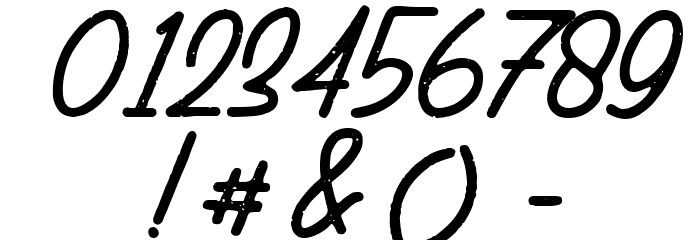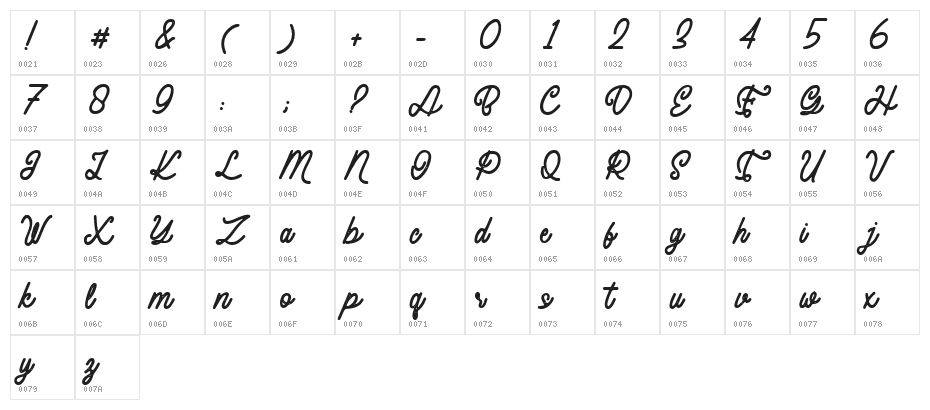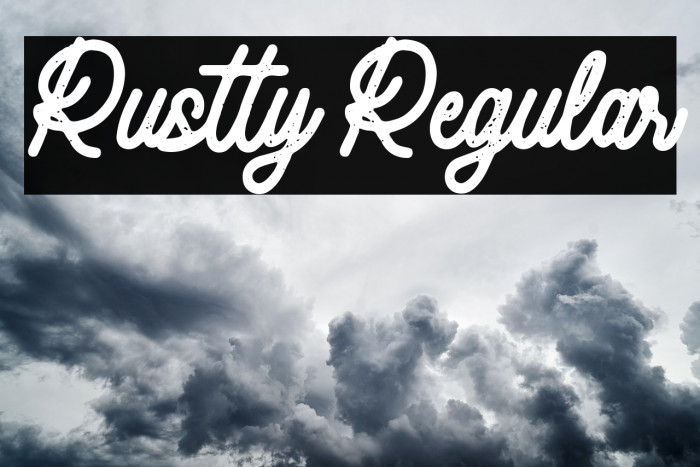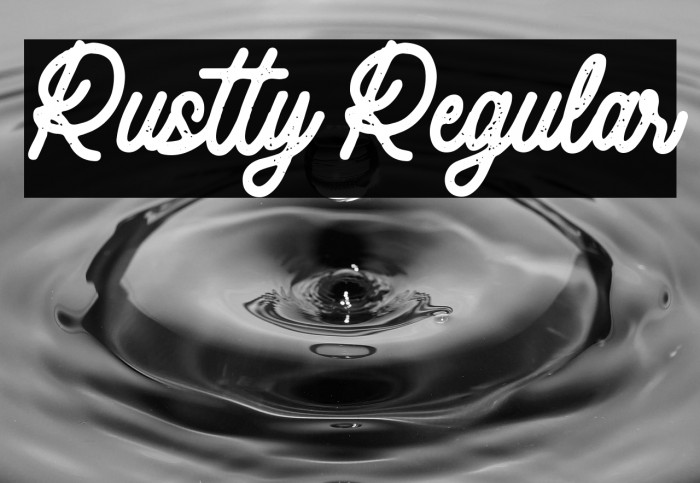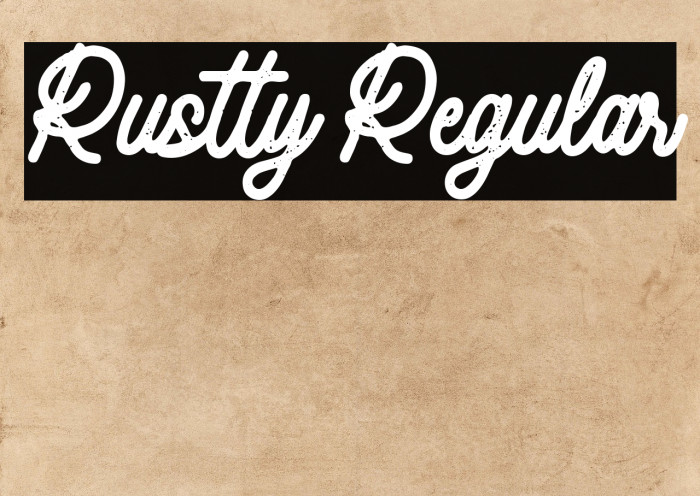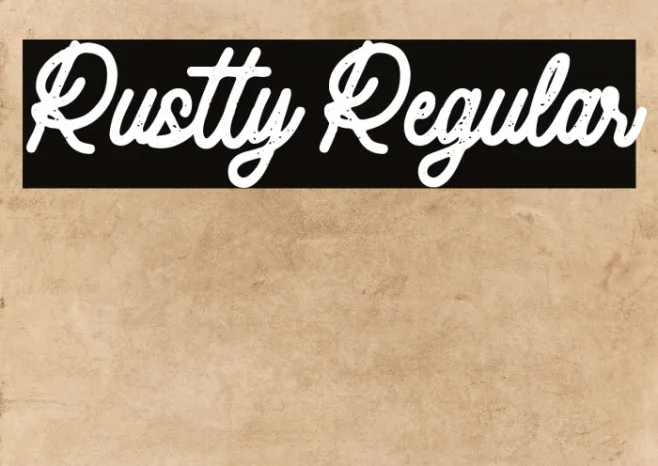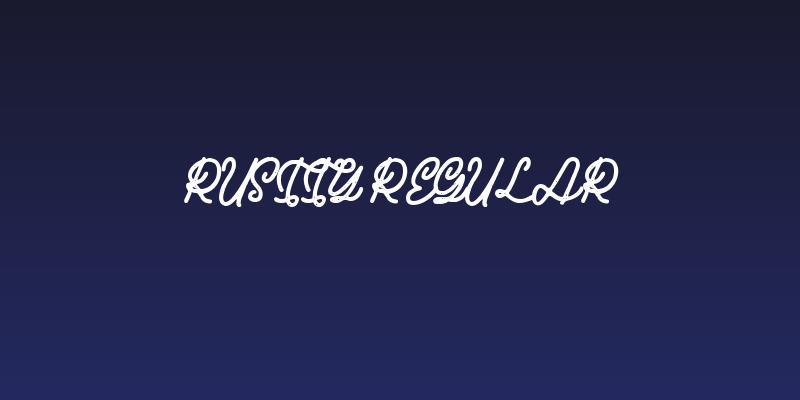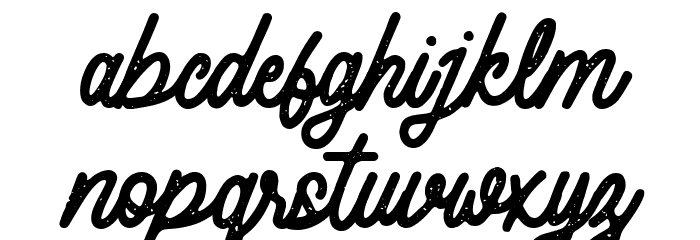
Rustty Regular Font
Rustty Regular Description
This font exhibits a bold and dynamic script style, characterized by its flowing, cursive letters that connect seamlessly. The strokes are thick and consistent, giving it a robust appearance. The uppercase letters maintain a uniform height, while the lowercase letters feature a slight slant, enhancing the fluidity and movement. The numbers and special characters are designed to match the overall script style, ensuring cohesion across all elements. This font's energetic and lively nature makes it suitable for projects that require a personal touch or an artistic flair.